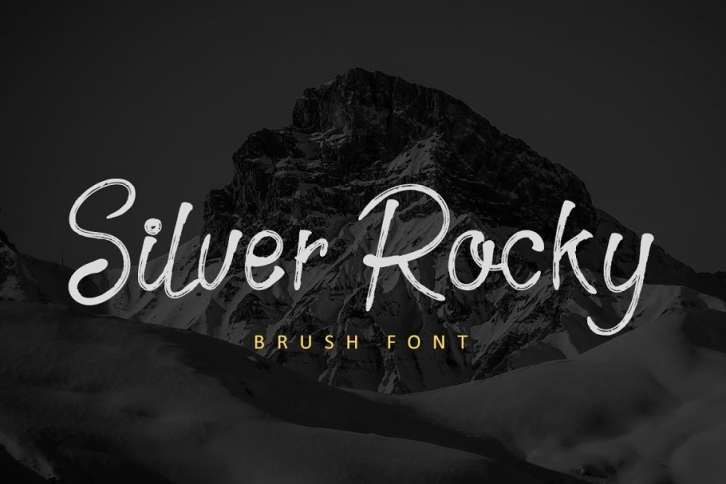
Silver Rocky is a unique and flowing handwritten font, designed with the help of a brush pen. Fall in love with its incredibly versatile style and use it to create spectacular designs!